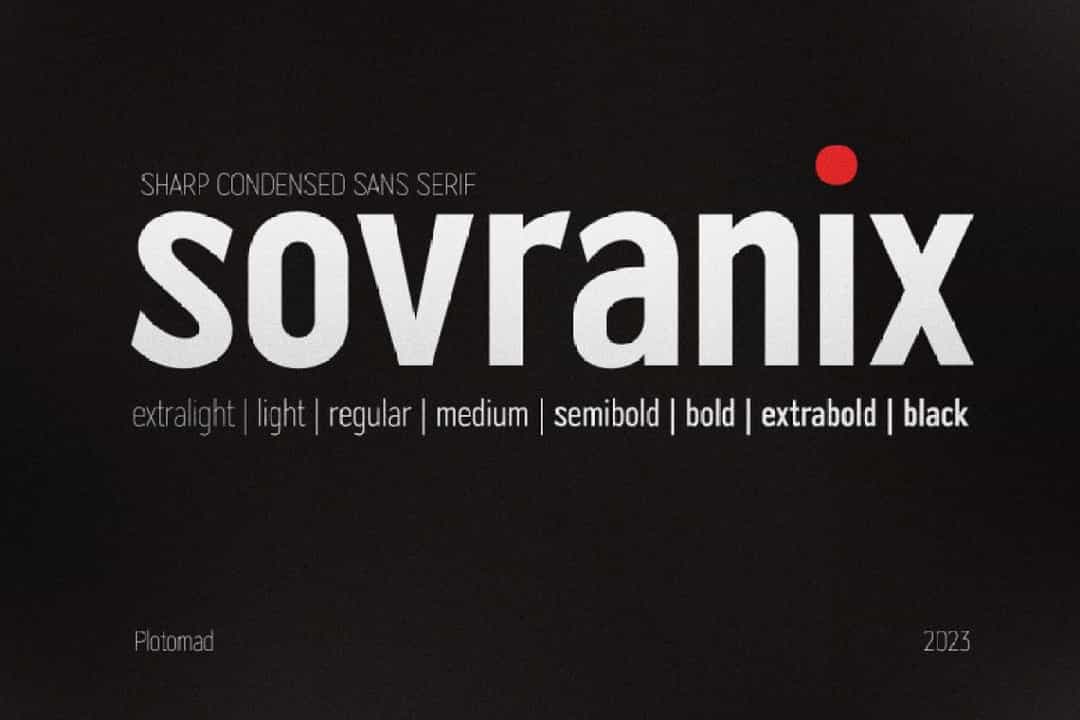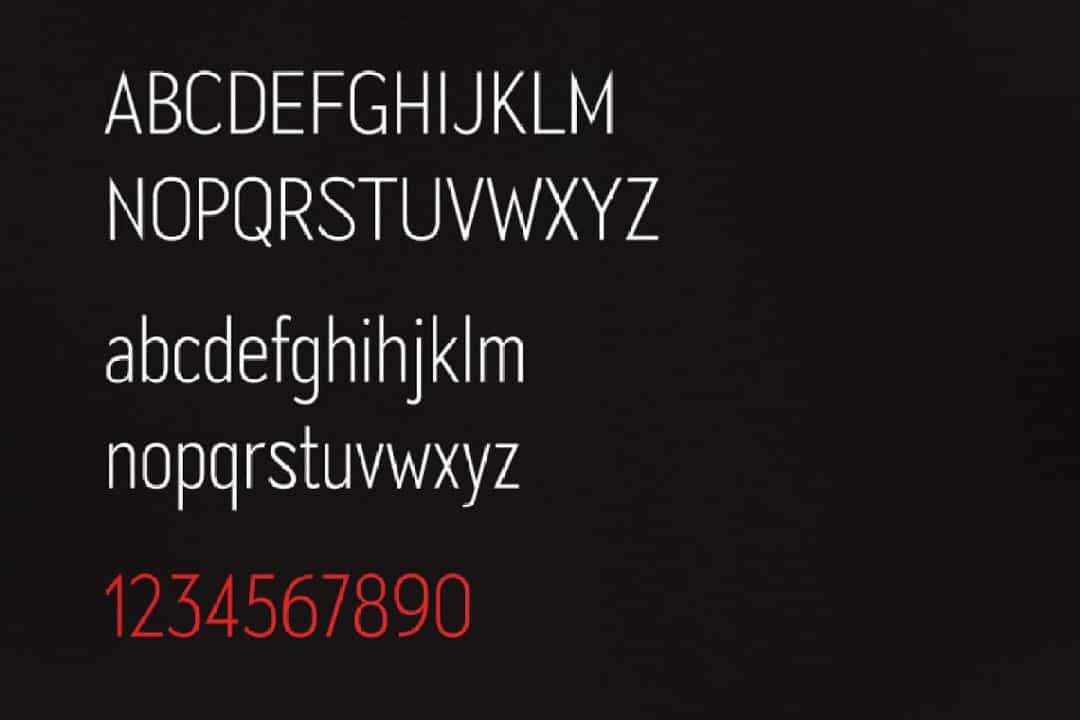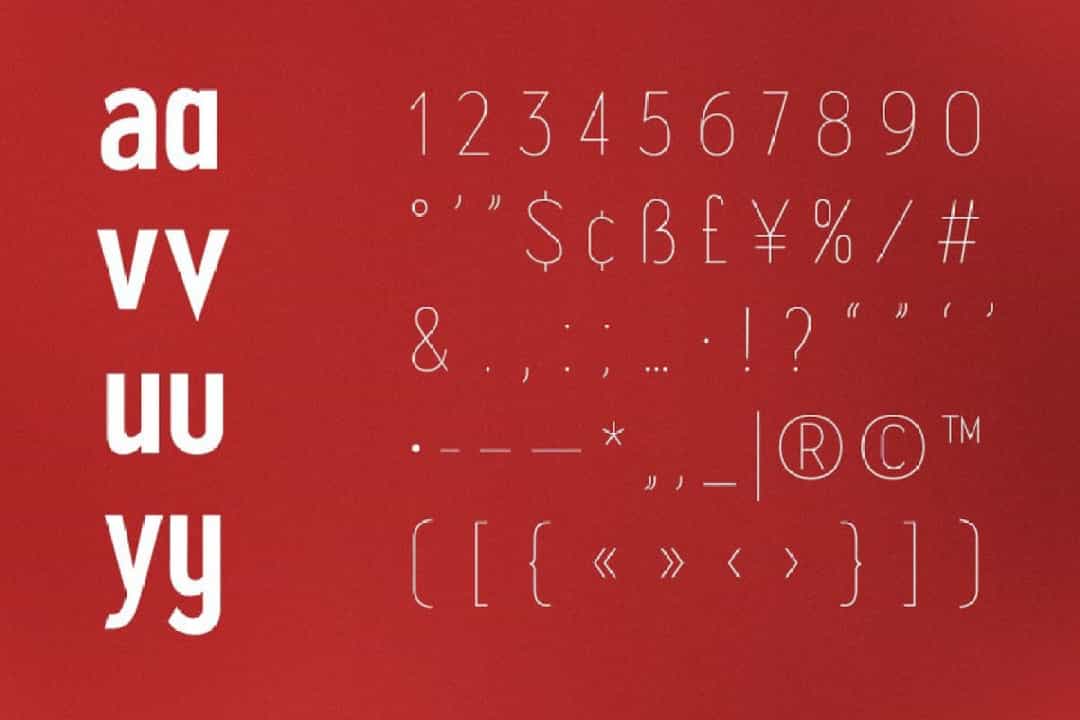
Sovranix font is an elongated and contemporary sans serif font with multiple characters. It stands out with its extended and sharp outlines which gives this font its distinct character. Perfect for headlines signs, logos, signage post on social media and much more; Sovranix font makes an ideal addition for projects which call for contemporary and busy designs.